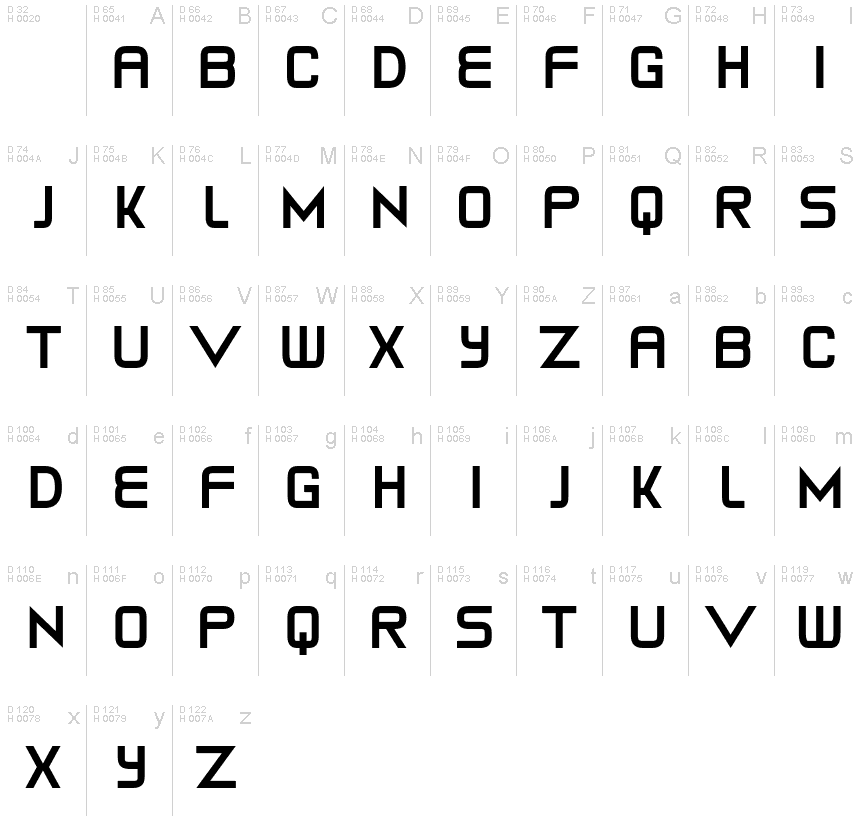
Croatia Regular
Croatia is a modern sans serif font designed by Vladimir Nikolic. With its wide letterforms, this font is perfect for creating bold headlines and titles. It's also suitable for branding projects, posters, logos and identity design.